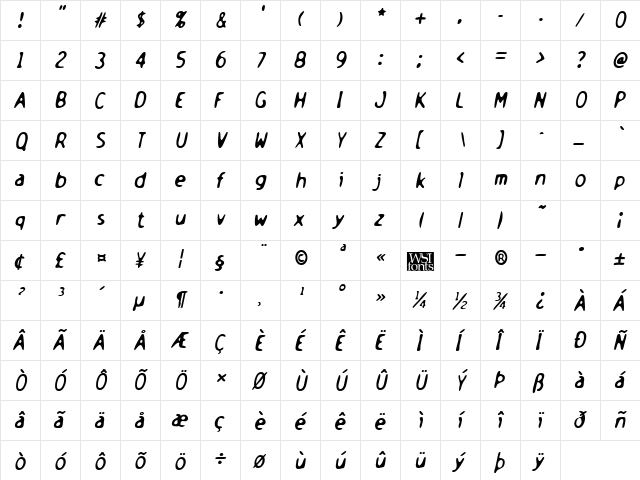
GriottGothic Bold Italic Font Preview
GriottGothic Bold Italic
GriottGothic Bold Italic Font Details
Design Context for GriottGothic Typeface
GriottGothic has the quiet confidence of well-executed sans-serif typography: versatile, unobtrusive, and dependable at any size. The dynamic lean of this cut emphasises speed and emphasis in any layout. Its bold stroke weight gives it real presence on the page.
A strong choice for UI design, app interfaces, bold signage, and corporate brand systems.
Font Pairing: Use GriottGothic for headlines alongside a lighter-weight sans or serif for body copy to establish clear visual hierarchy.
Pro Tip: Pair GriottGothic with a display or serif font for headlines — its neutral character makes it an excellent supporting player in complex typographic systems.